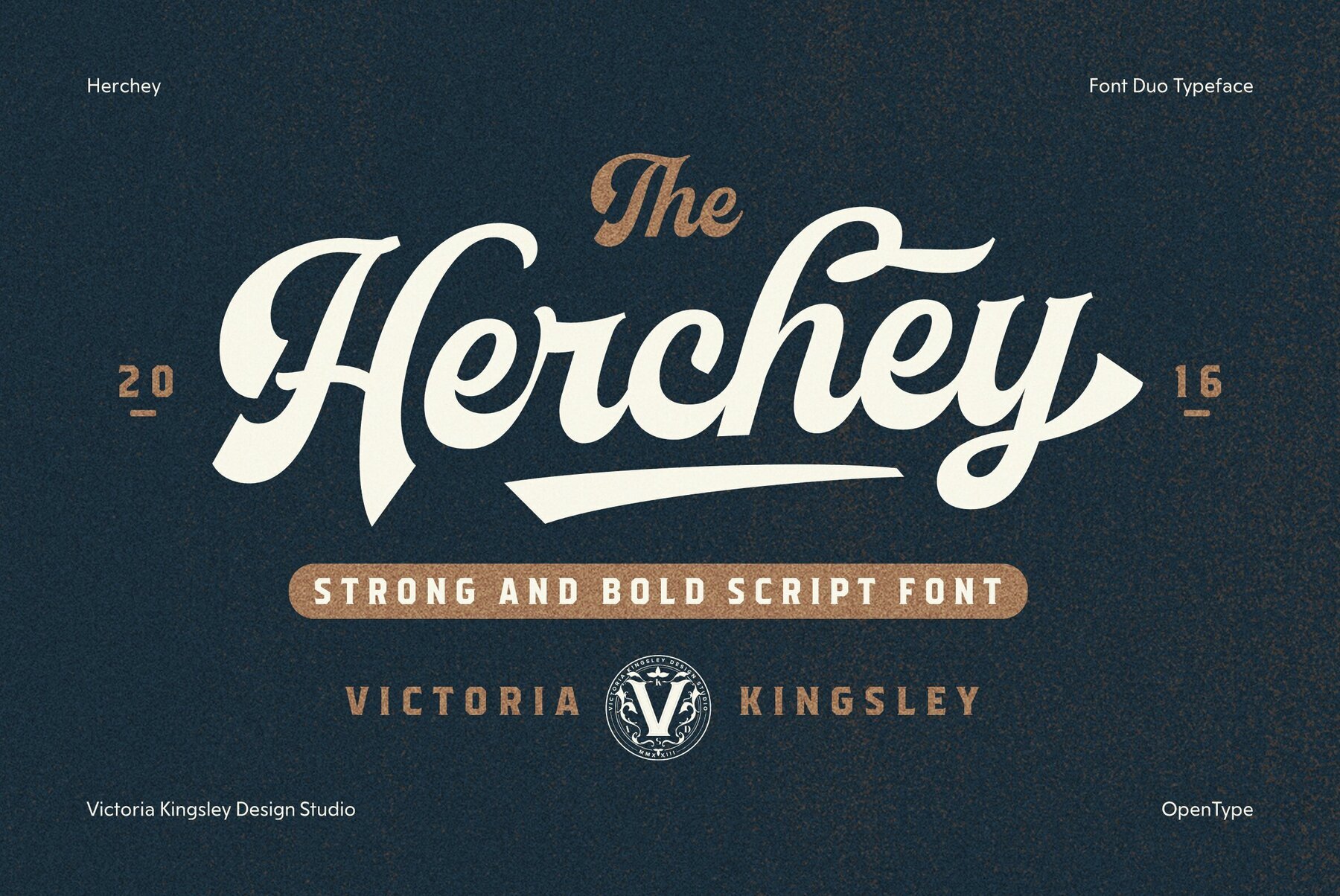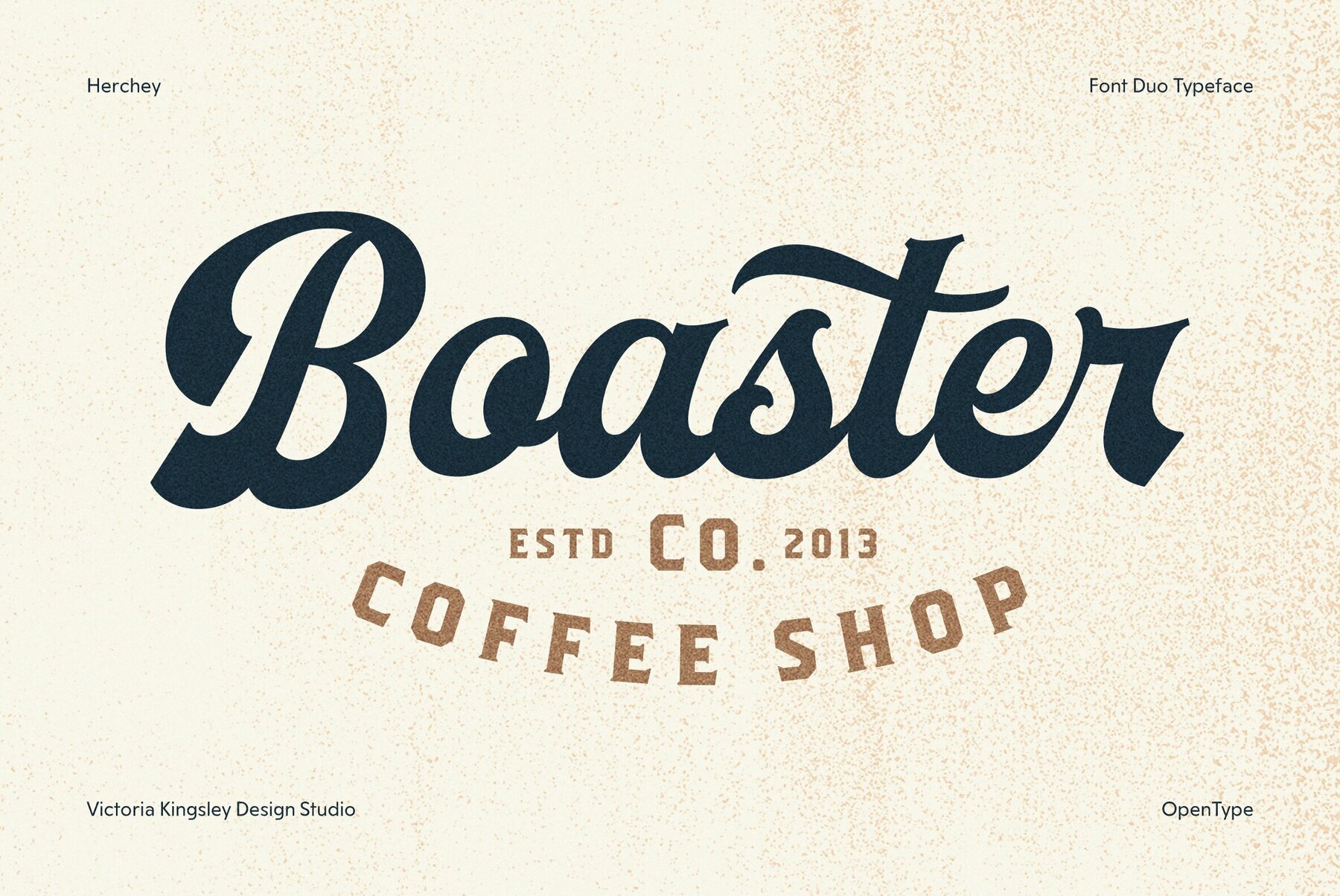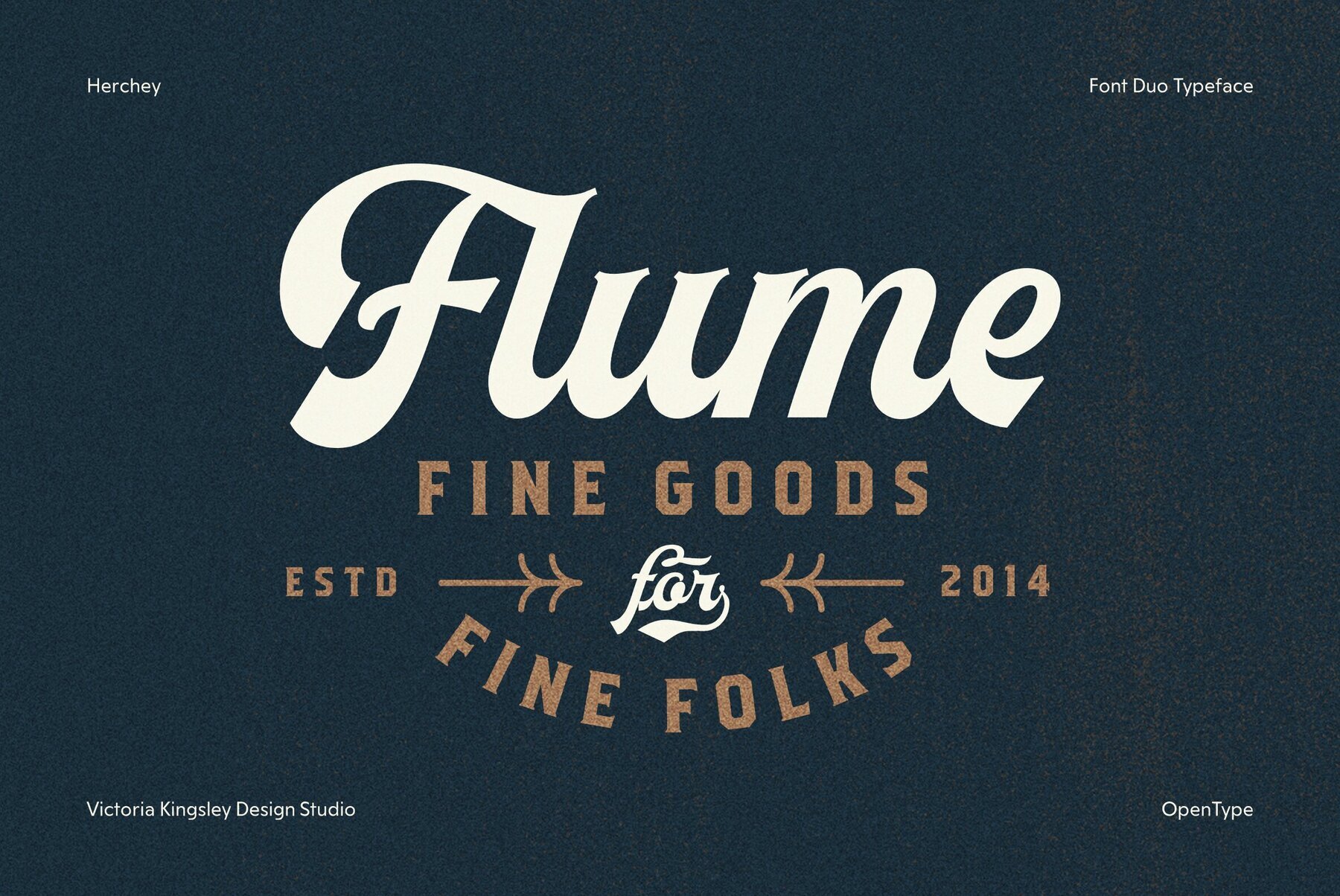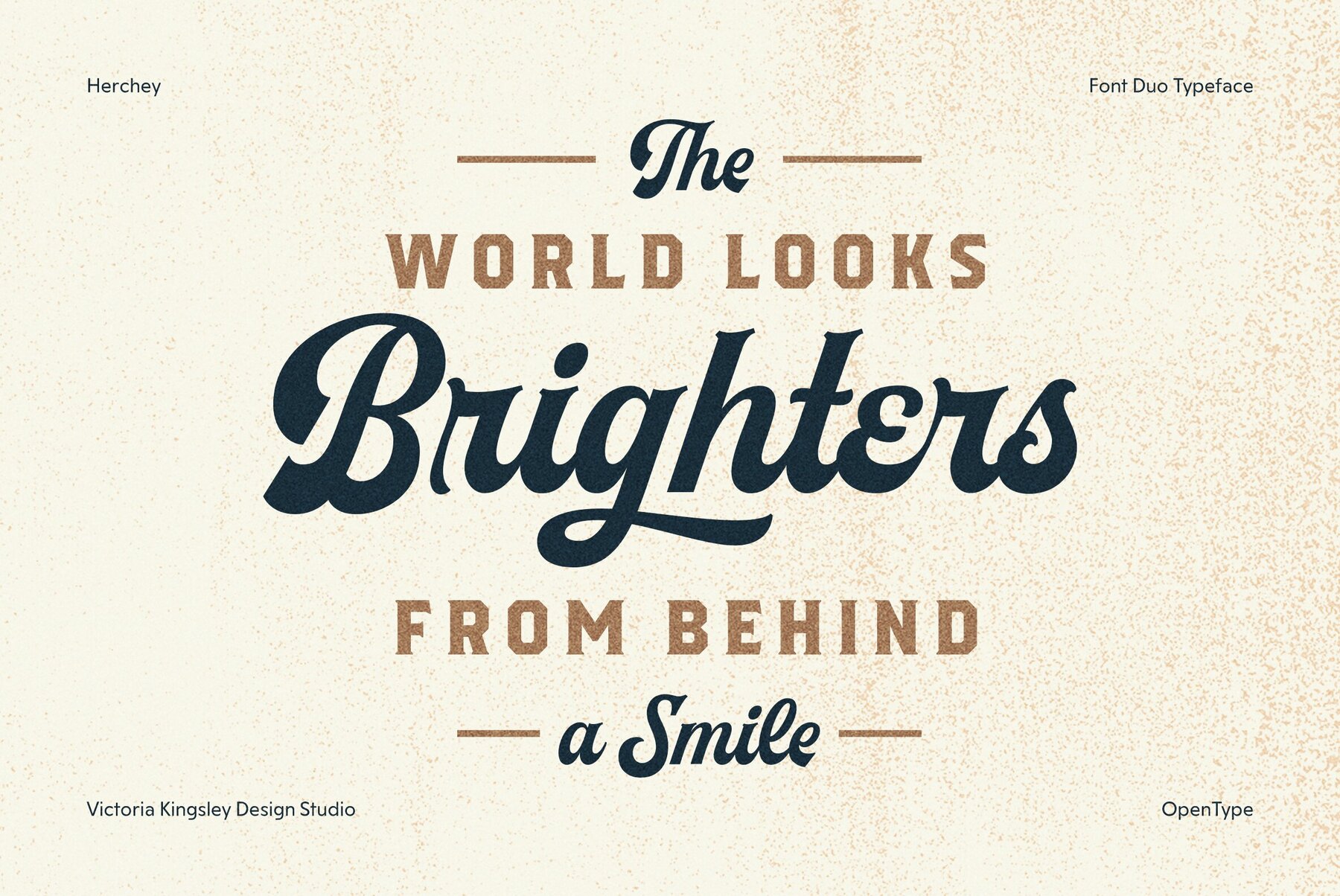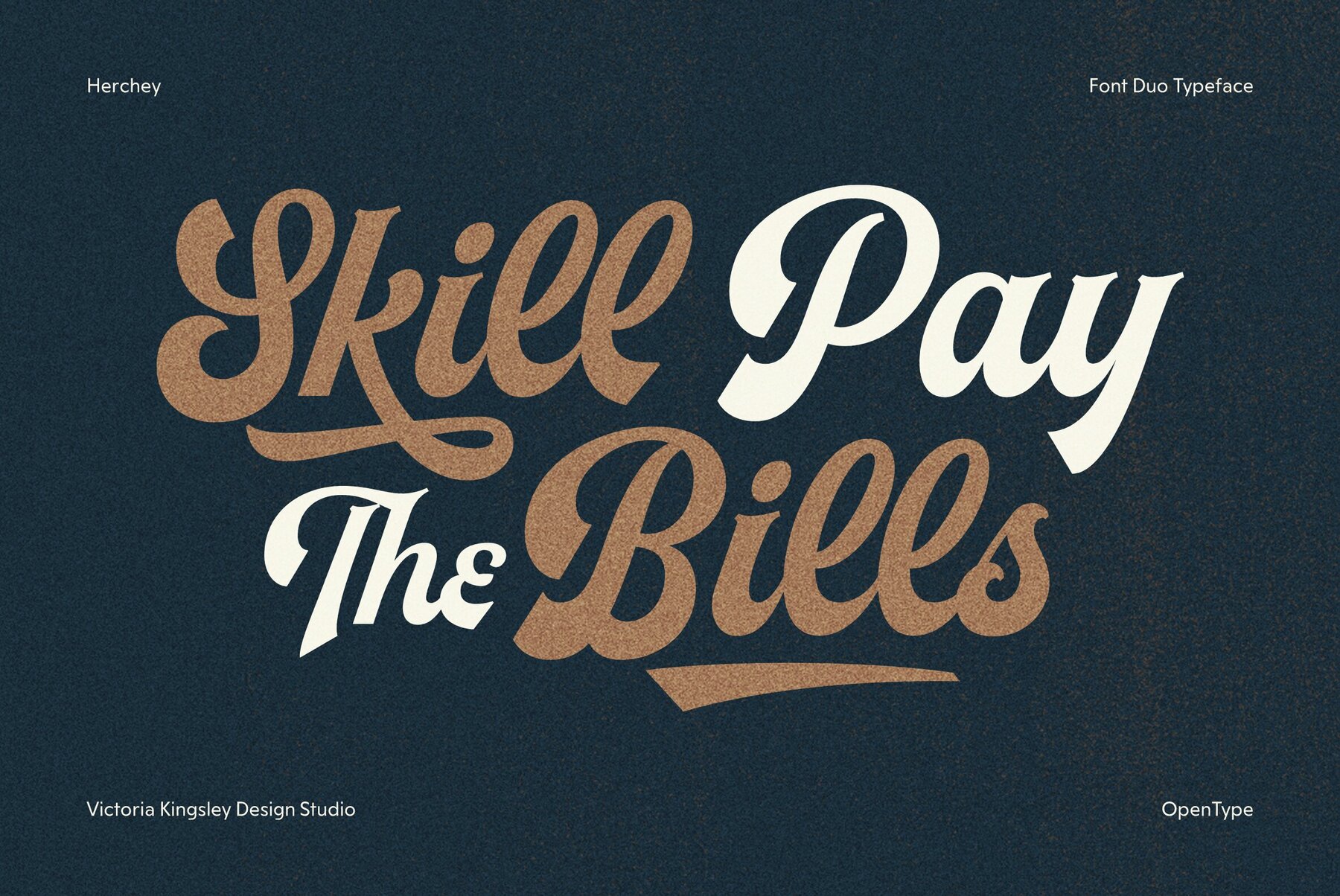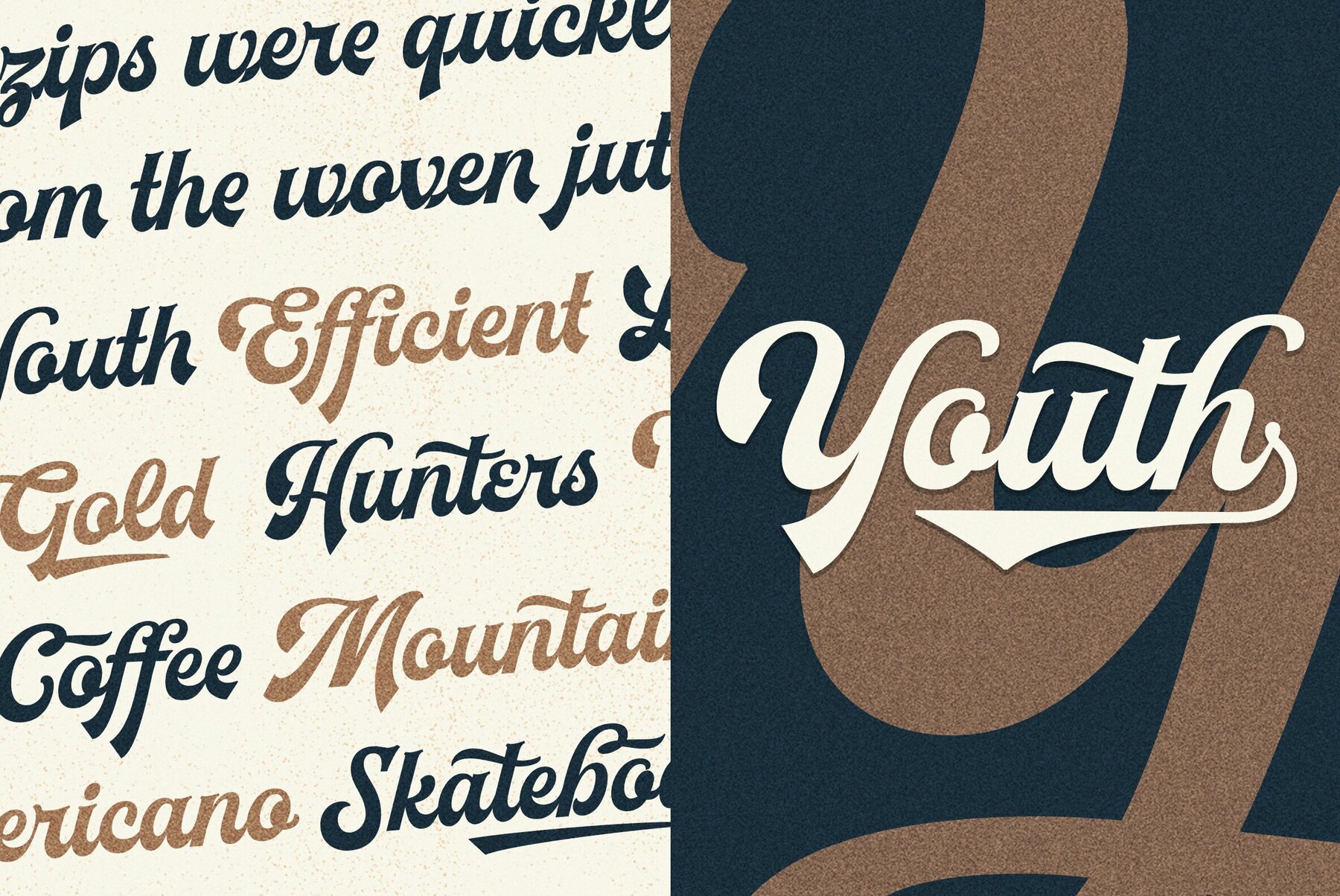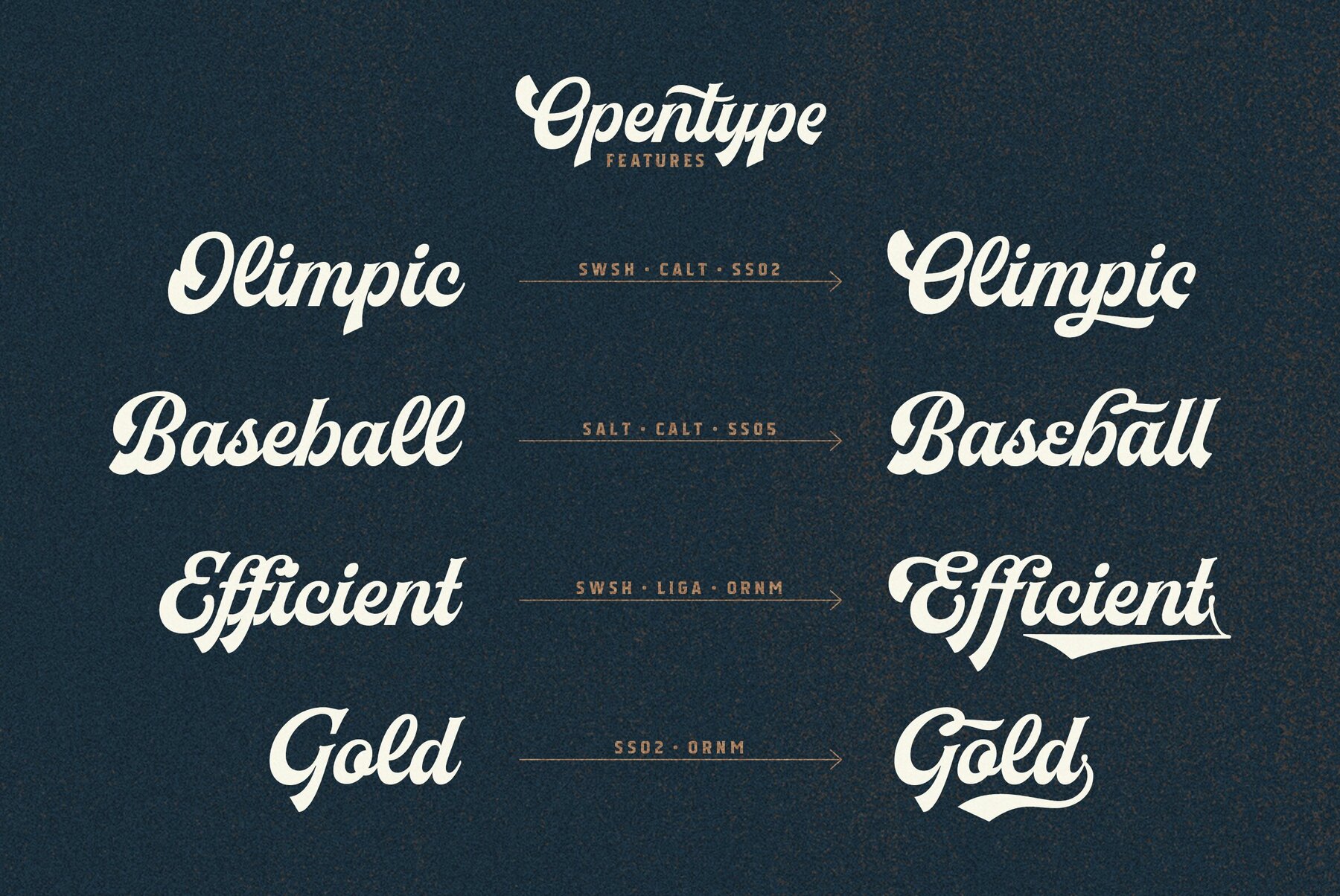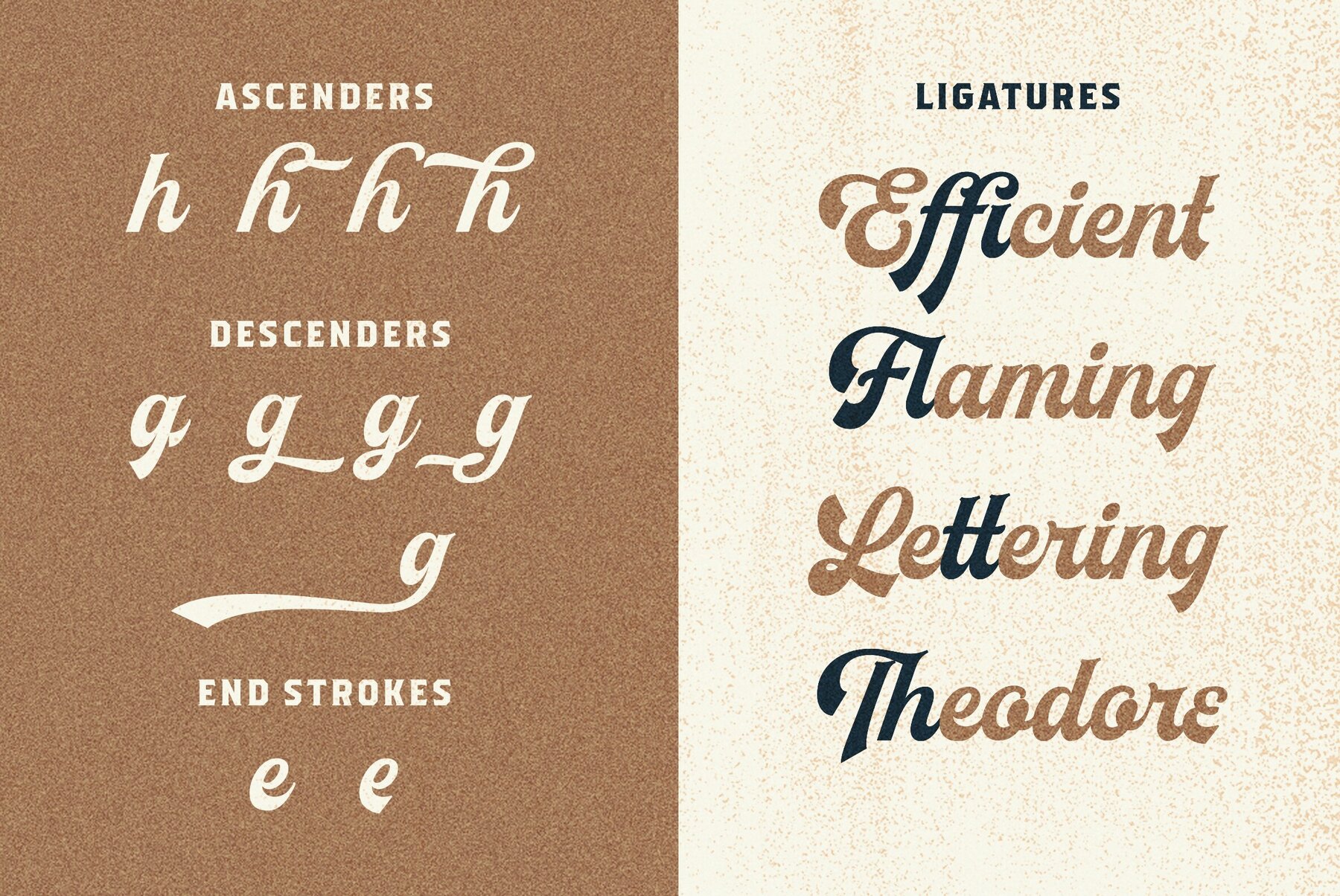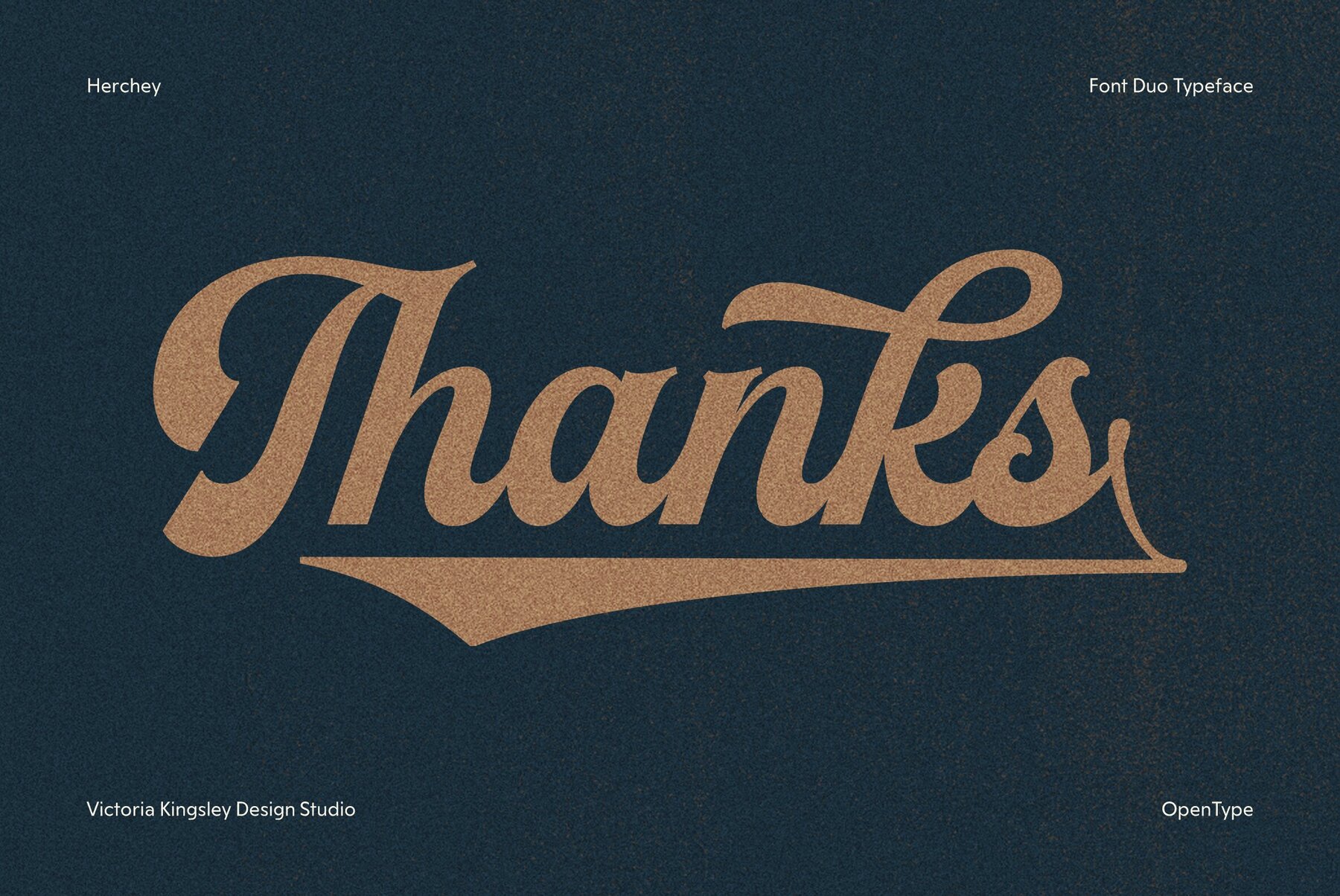
Herchey Font
Herchey Script
Herchey Serif
The Herchey font duo is designed to enrich sports and food branding projects with its distinct pairing of script and serif styles. The script font draws inspiration from classic baseball team logos, featuring swashes that add a touch of nostalgia and unique flair. This dynamic design includes OpenType features such as Stylistic Alternates, Swashes, Ligatures, Terminal Forms, and Ornaments, offering a varied toolkit for creative typography. The font's bold script style, enhanced by italicized brush strokes, delivers a high visual impact ideal for display purposes. Its fluid characters evoke elegance and energy, lending an expressive artistic touch suitable for modern designs. Embodying a calligraphic and organic feel, Herchey enhances sophistication and dynamism in your creative projects.Herchey: A Versatile Font Duo for Dynamic Branding